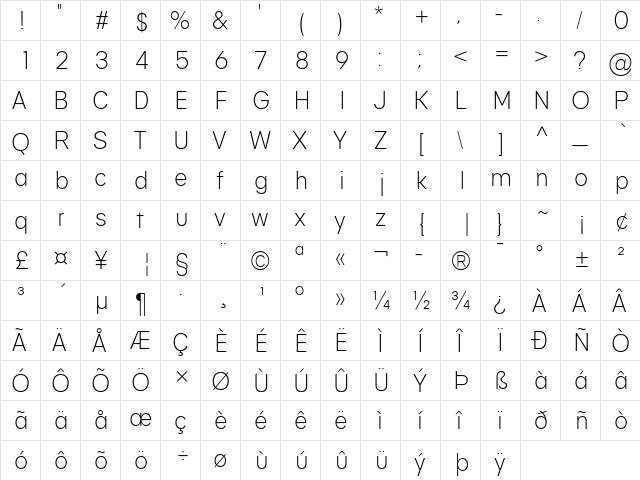
Genera Alt Light
| Designer | Wahyu S. Adi Wibowo |
Design Context for Genera Typeface
Genera offers clean, dependable letterforms without strong stylistic allegiance, making it a practical choice for designers who need flexibility. The delicate stroke weight brings airiness and refinement to layouts.
Pro Tip: Use Genera in both headline and body roles to test its range before committing to a single application.